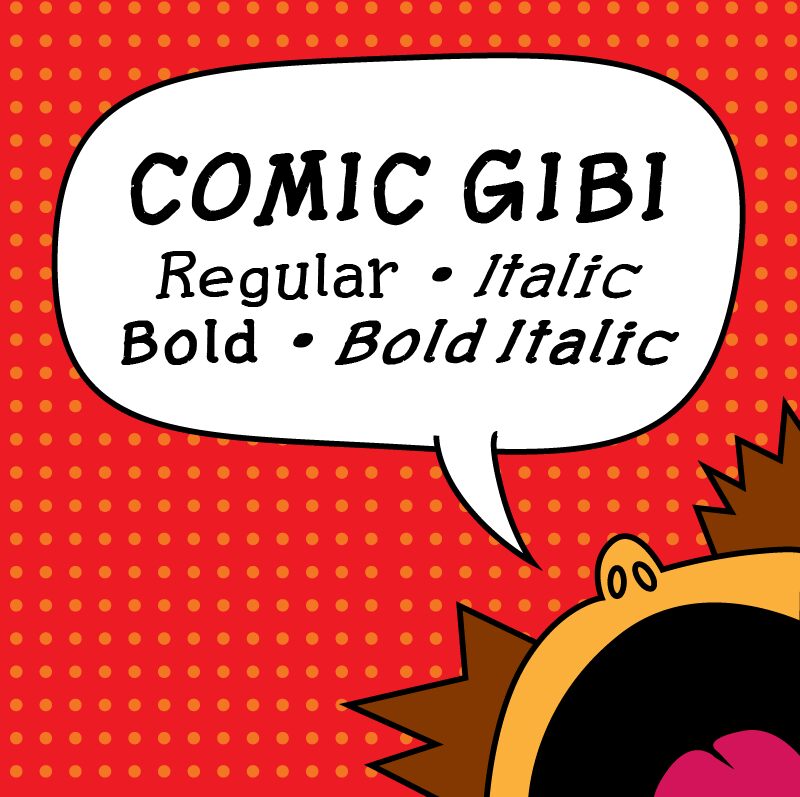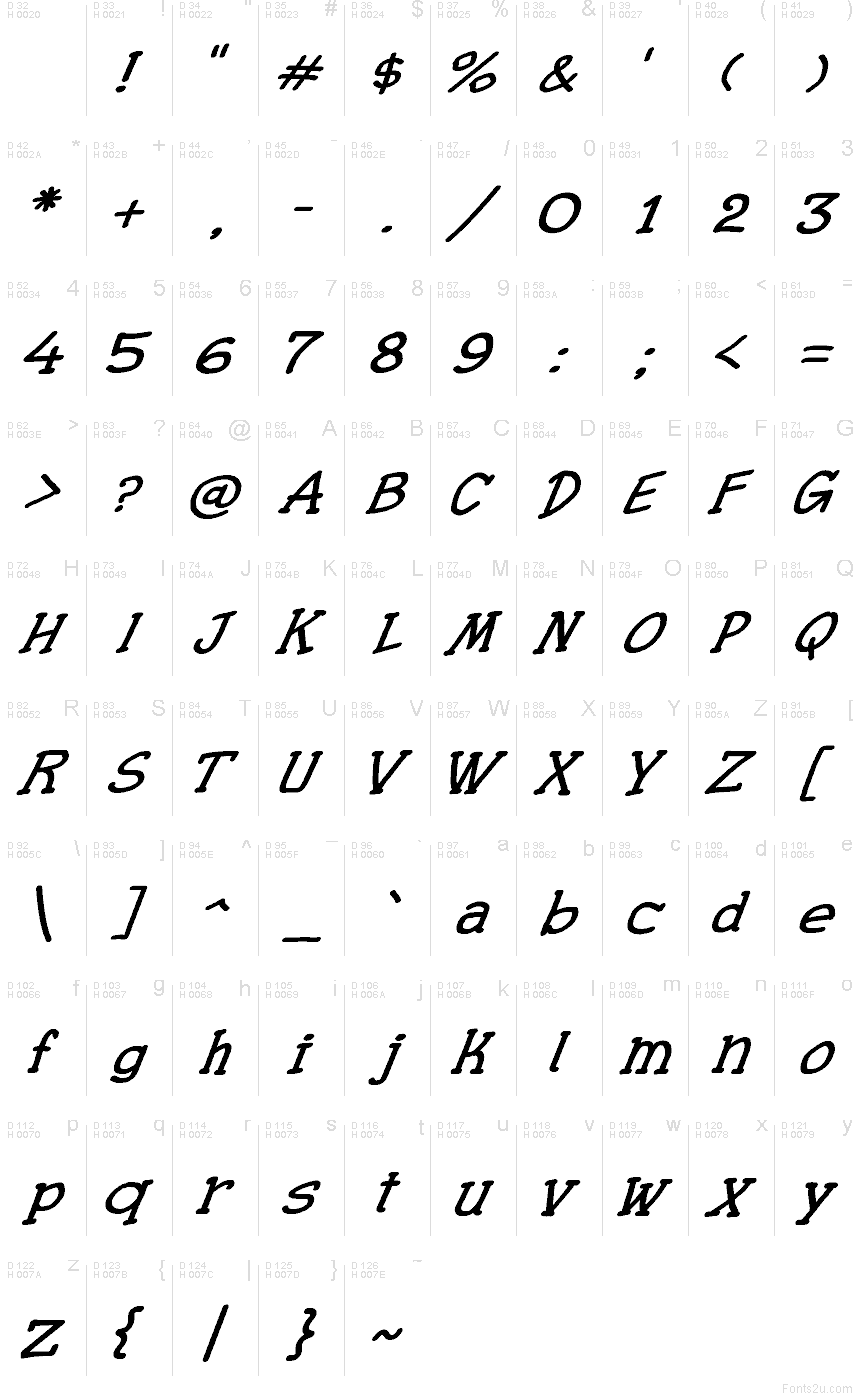
Comic Gibi Italic, by Galdino Otten Fonts, is a free hand-drawn comic display font with a lively rightward lean and broad, inky strokes. Its loose curves, uneven joins, and softly tapered ends give the lettering the easy rhythm of a quickly penned title.
Use it for comic covers, children's book titles, playful posters, game title cards, short packaging headlines, and casual, character-driven logos. This free font works best in brief, expressive settings, where its generous forms and rolling slant can carry the mood without extra decoration.